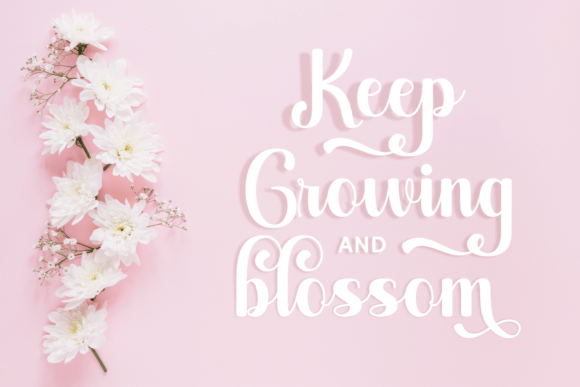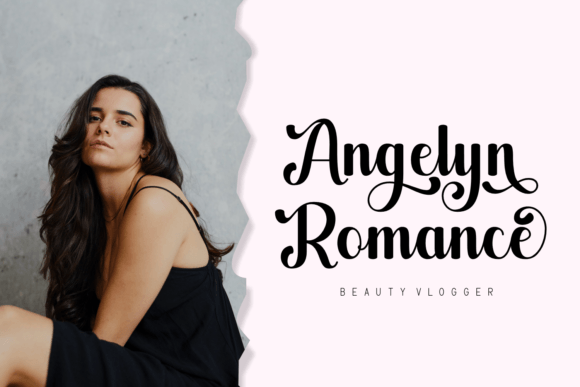
Alicia Charlotte is a beautiful, elegant script font. The romantic swashes and flowing rhythm make this font an excellent asset to your fonts library. Enjoy its versatility by using it for all kinds of design projects!